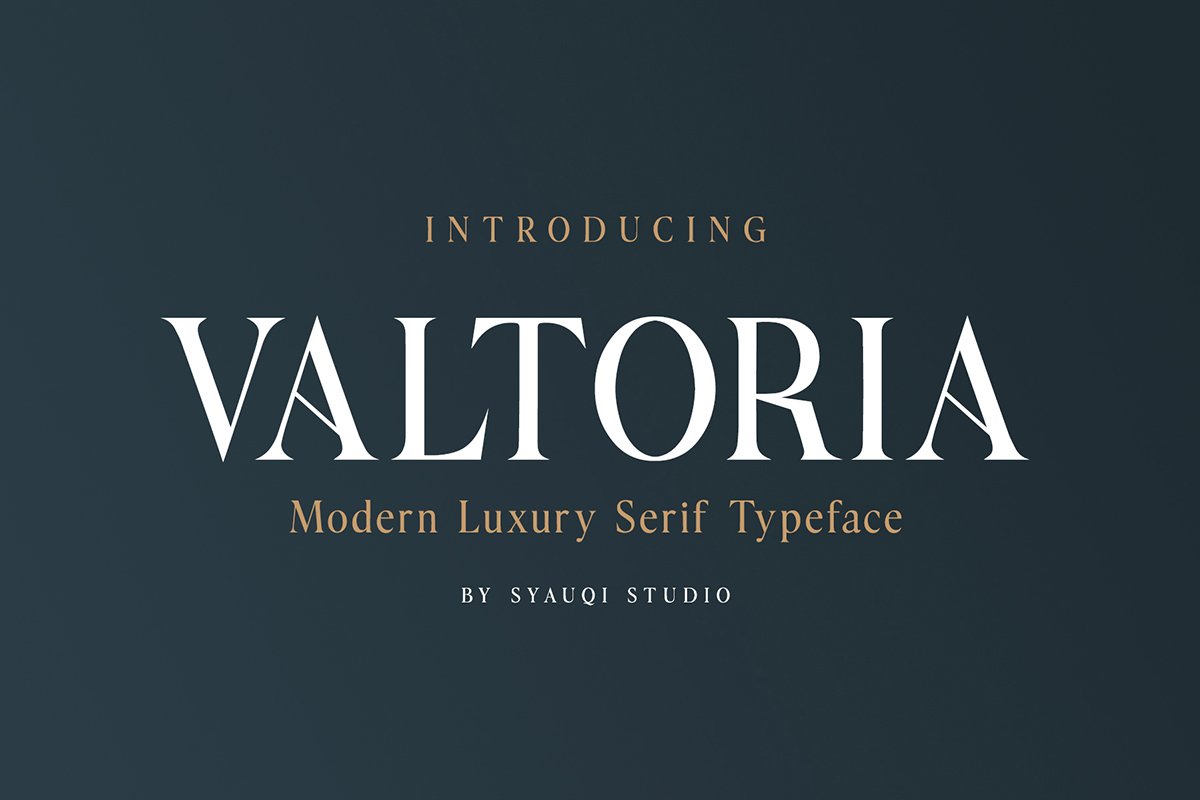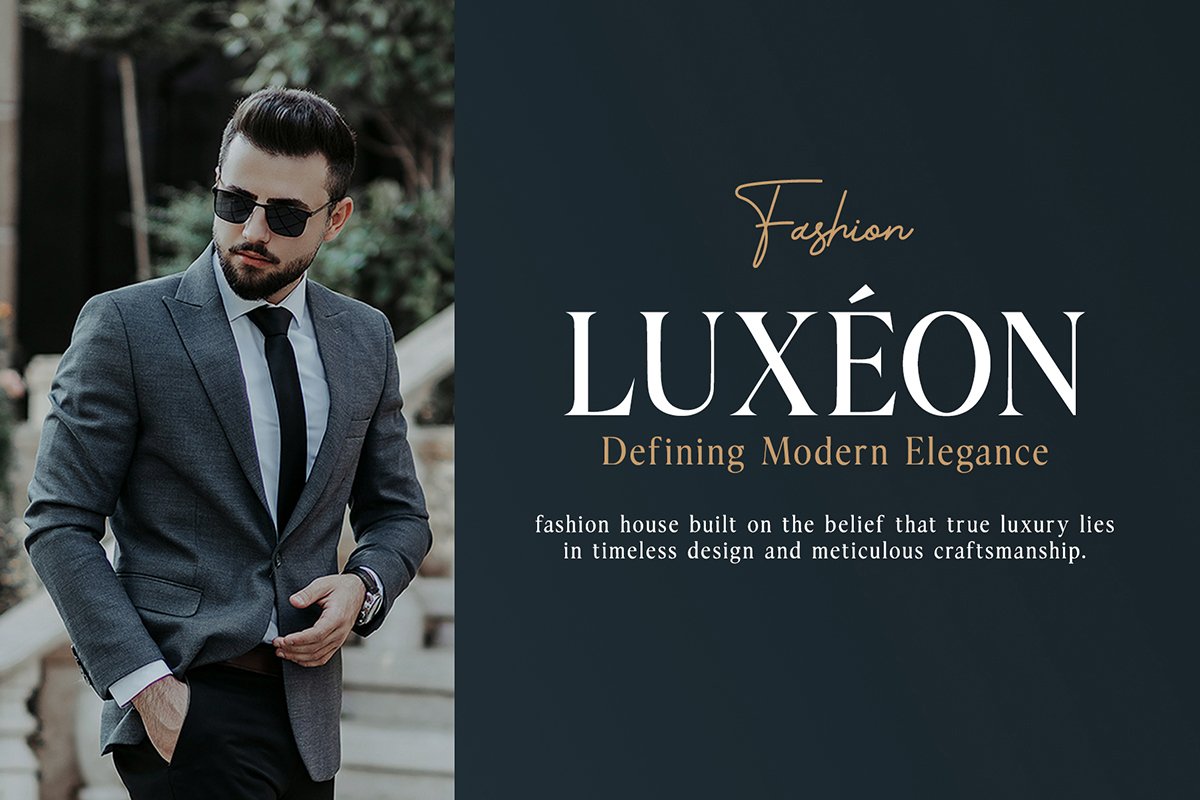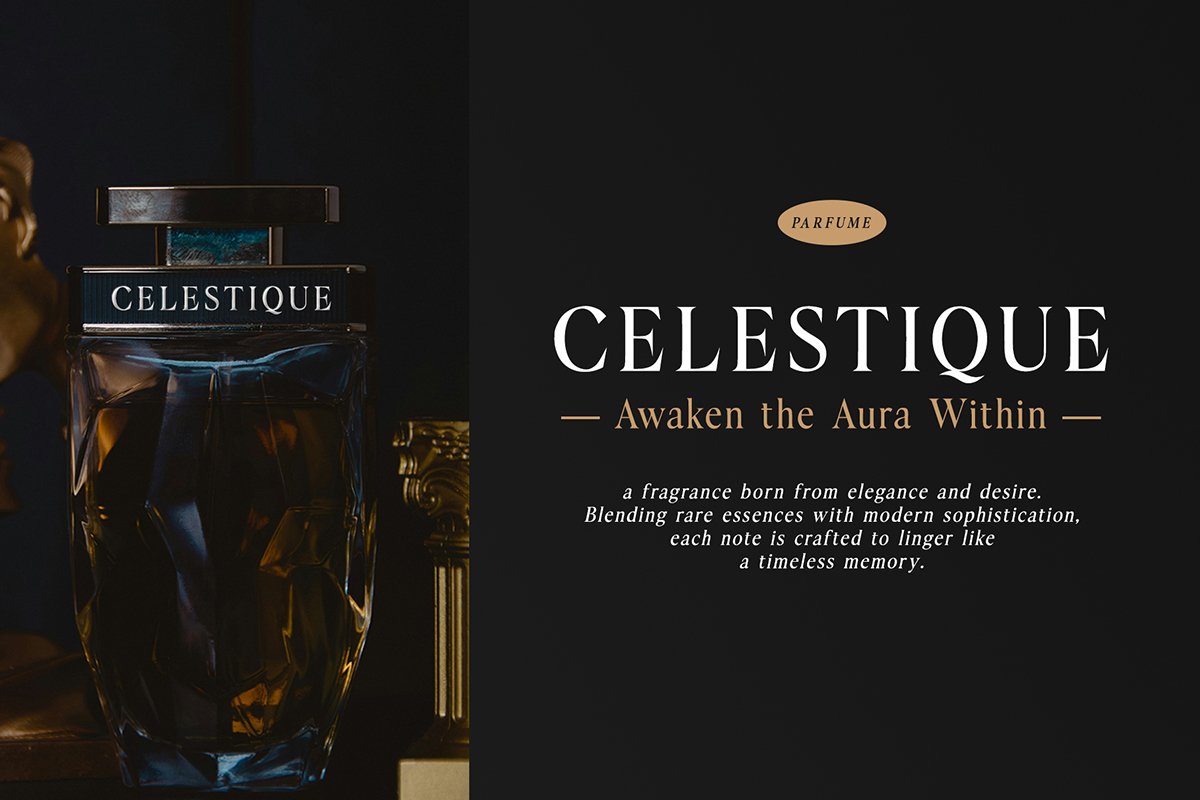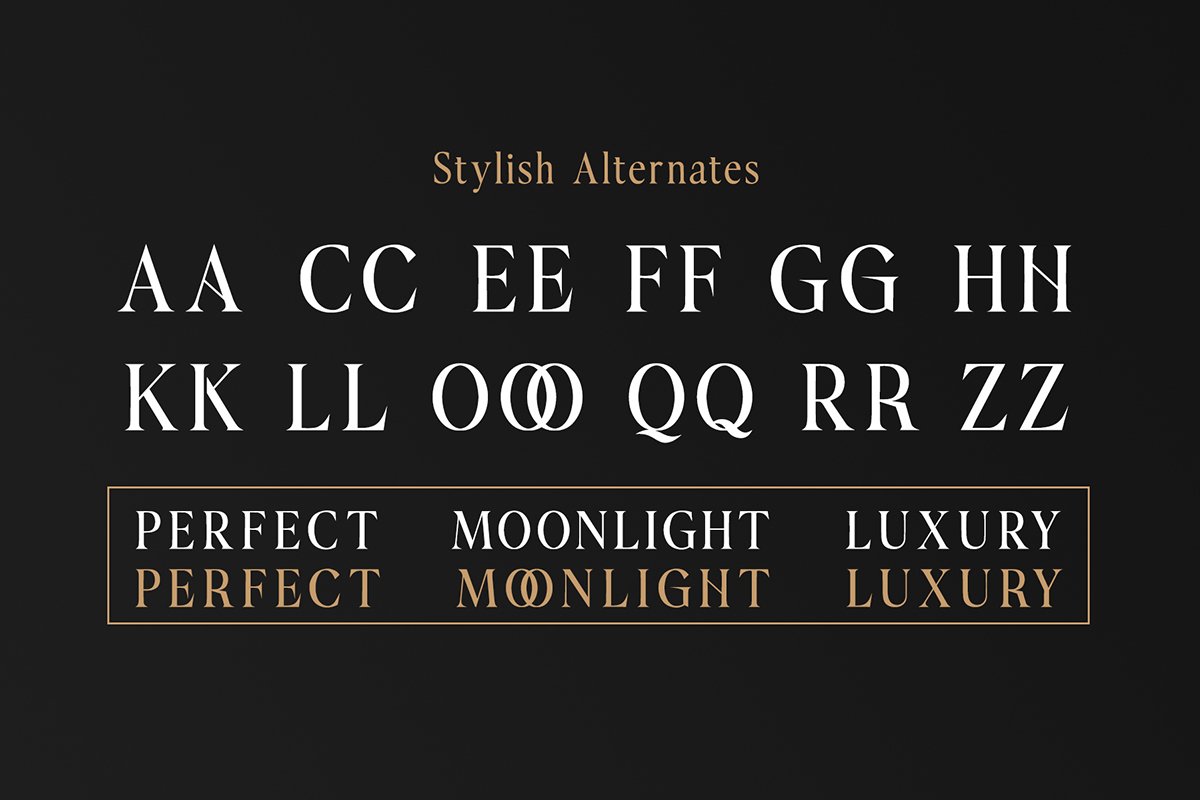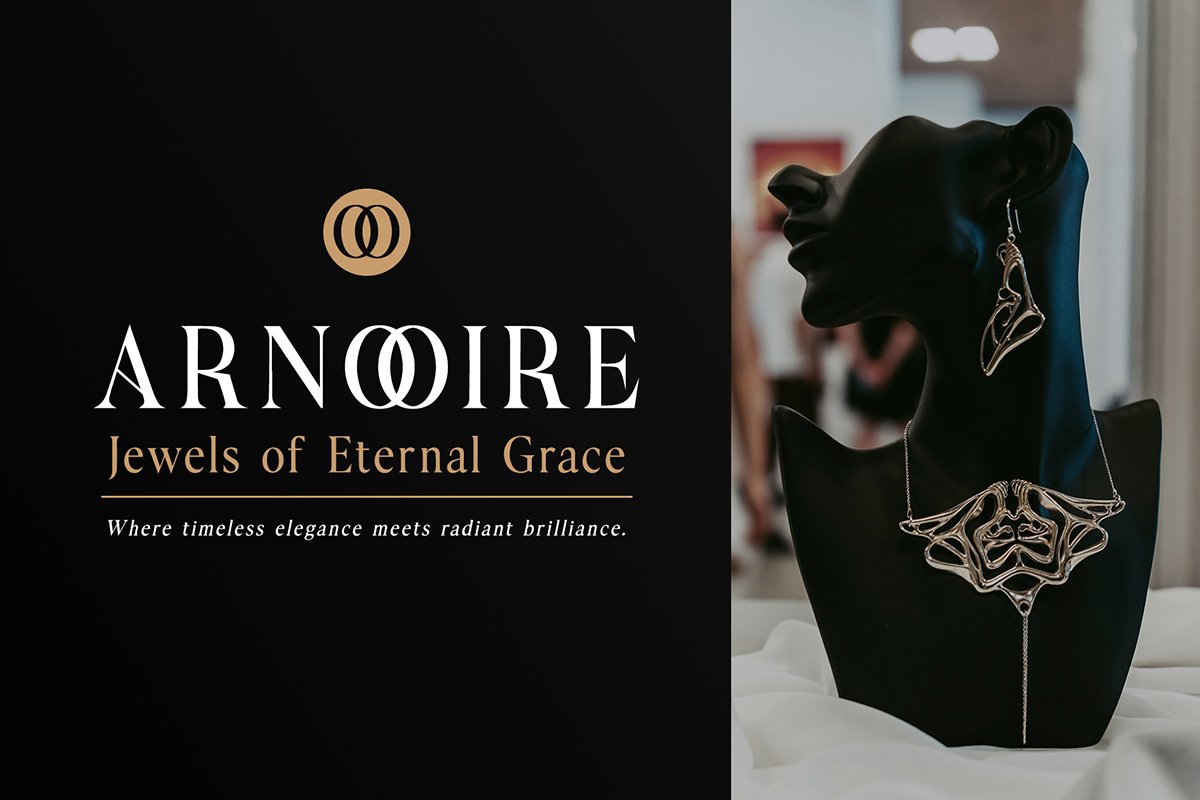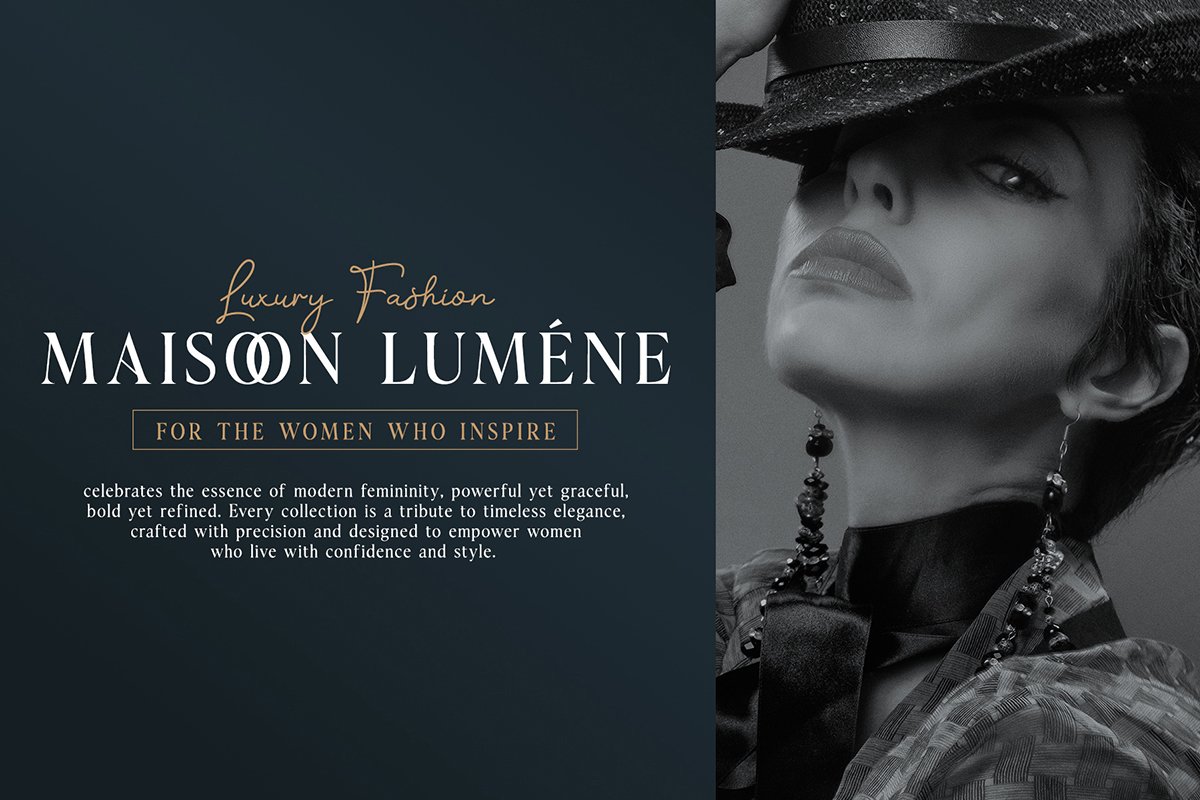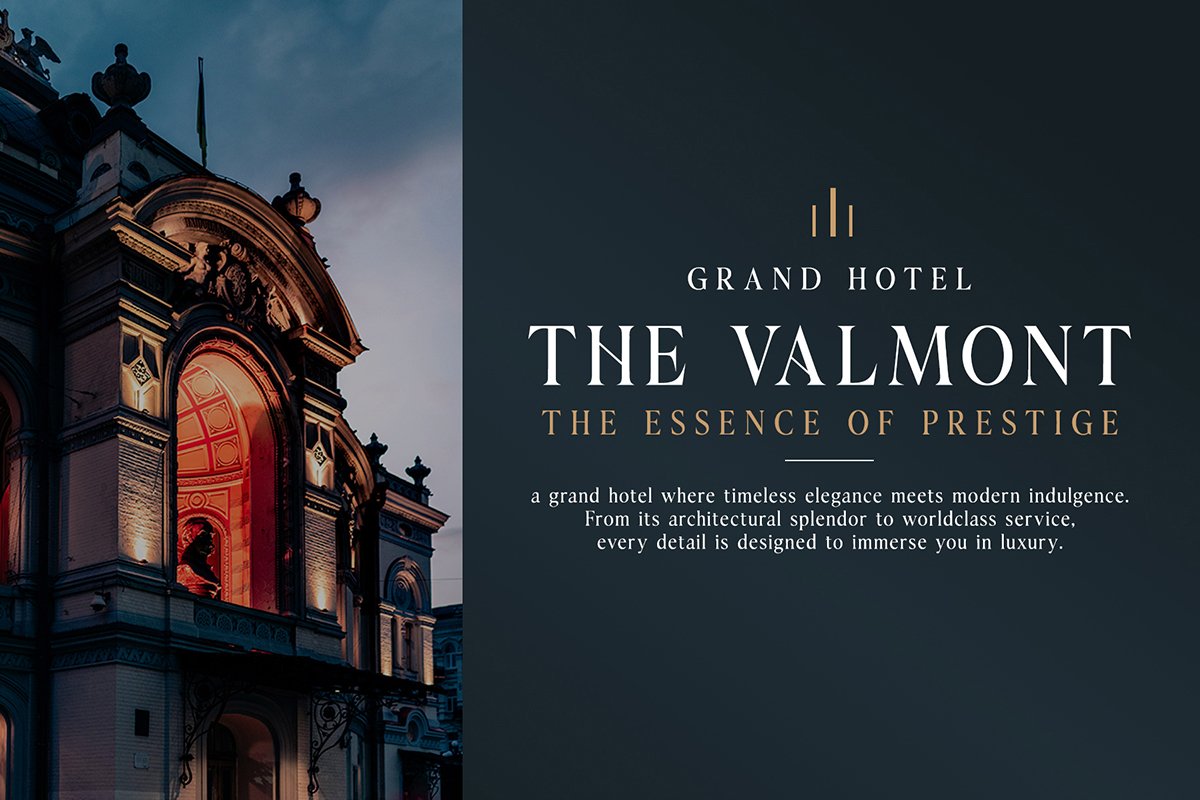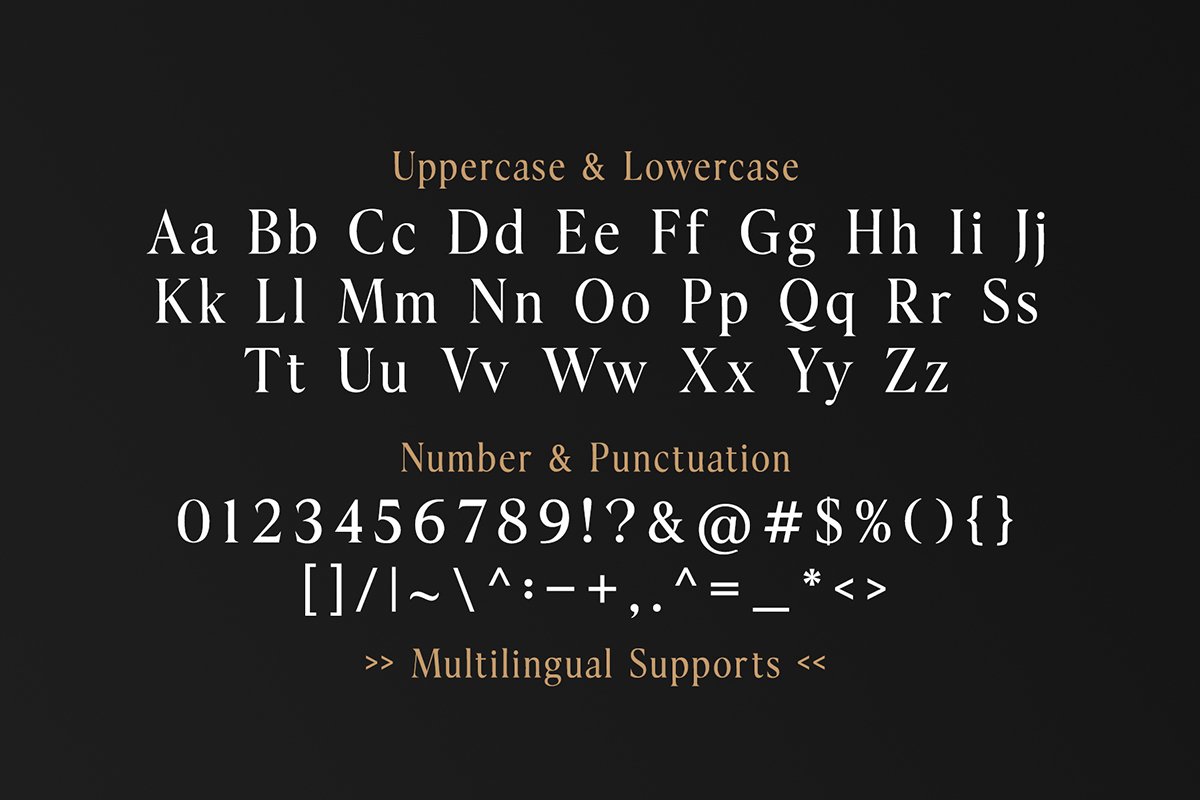
Valtoria – Modern Luxury Serif Typeface is a modern serif typeface that blends timeless elegance with contemporary sophistication. Designed with refined details and balanced proportions, it brings a sense of luxury, class, and exclusivity to any project.
Its strong yet graceful letterforms make it perfect for branding, editorial design, logos, packaging, invitations, fashion campaigns, luxury hotels, cosmetics, and digital media. Whether you want to create a high-end visual identity or add a classic touch to modern layouts, Valtoria delivers versatility and style.